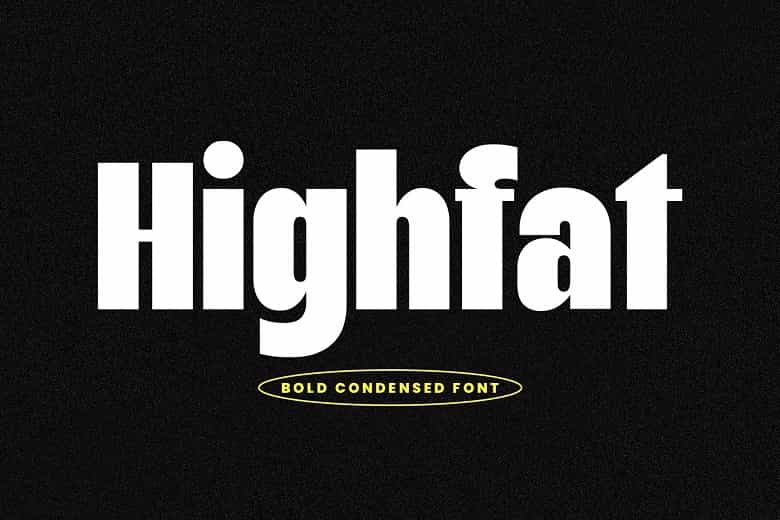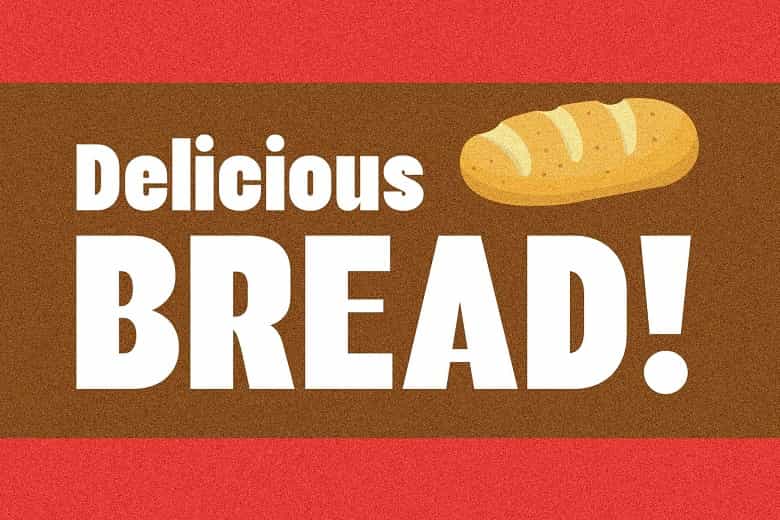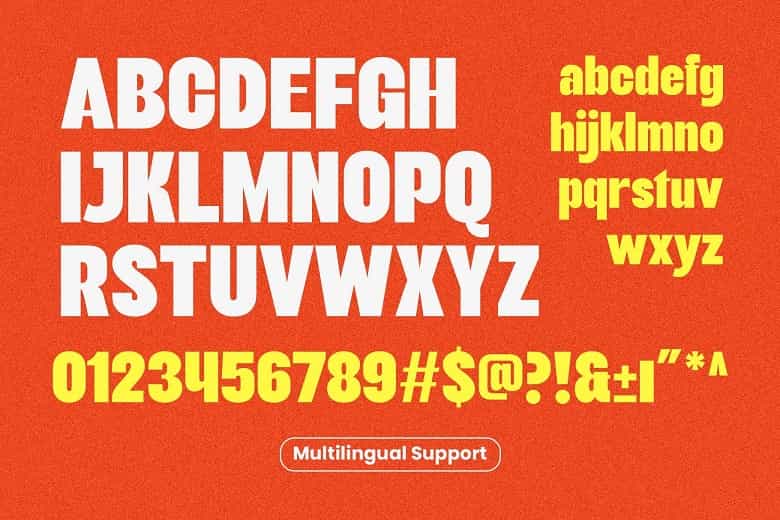
Highfat is a spectacularly bold condensed font which was created with the influences of the classic bold typography and the contemporary sans serif fonts. Great for the application of display, Highfat draws the eye and gives your design a denser, more substantial feel.